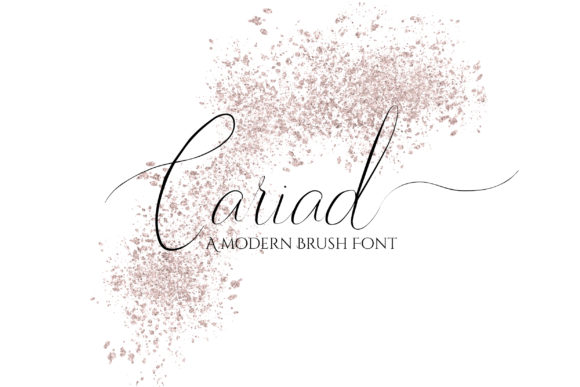
Cariad Font: Elevate Your Designs with a Beautiful Signature Style
In the world of typography, fonts play a crucial role in conveying the tone and personality of a design. For designers and crafters looking to add a touch of elegance and sophistication to their projects, Cariad Font is an excellent choice. This stunning signature style brush font is perfect for creating unique and eye-catching designs that require a personal touch.
What is Cariad Font?
Cariad Font is a modern signature style brush font that boasts a beautiful and elegant aesthetic. Its unique blend of classic and contemporary elements makes it an ideal choice for a wide range of design projects. Whether you’re looking to create a logo, invitation, wedding invite, card, or any other design that requires a personal touch, Cariad Font is the perfect solution.
Key Features of Cariad Font
• Unique and Distinctive: Cariad Font features a one-of-a-kind design that sets it apart from other fonts. Its distinctive style ensures that your designs will stand out from the crowd.
• Modern and Elegant: With its clean lines and sophisticated aesthetic, Cariad Font is perfect for designs that require a touch of modern elegance.
• Signature Style: This font’s signature style brush design gives it a personal and human touch, making it ideal for projects that require a sense of personality.
• Versatile: Cariad Font can be used for a wide range of design projects, from logos and invitations to wedding invites and cards.
Use Cases for Cariad Font
Cariad Font is an incredibly versatile font that can be used for various design projects. Here are some use cases where Cariad Font shines:
• Logos: Create a unique and memorable logo for your business or brand with Cariad Font.
• Invitations: Design stunning invitations for special occasions, such as parties, weddings, or baby showers.
• Wedding Invites: Make your wedding invitation stand out with Cariad Font’s elegant and sophisticated design.
• Cards: Create beautiful greeting cards for various occasions, such as birthdays, holidays, or thank-you notes.
• Design Projects: Add a personal touch to any design project, such as brochures, flyers, or posters.
Tips for Using Cariad Font
To get the most out of Cariad Font, here are some tips to keep in mind:
• Use it sparingly: Cariad Font’s unique style can be overwhelming if overused. Use it sparingly to create emphasis and add a touch of elegance to your design.
• Experiment with colors: Cariad Font looks great in various colors. Experiment with different hues to find the perfect match for your design.
• Pair it with other fonts: Combine Cariad Font with other fonts to create a unique and visually appealing design.
Cariad Font is a beautiful and modern signature style brush font that can elevate your designs to the next level. Its unique and distinctive style makes it perfect for logos, invitations, wedding invites, cards, and any design project that requires a personal touch. With its versatility and elegance, Cariad Font is an excellent addition to any designer’s toolkit.